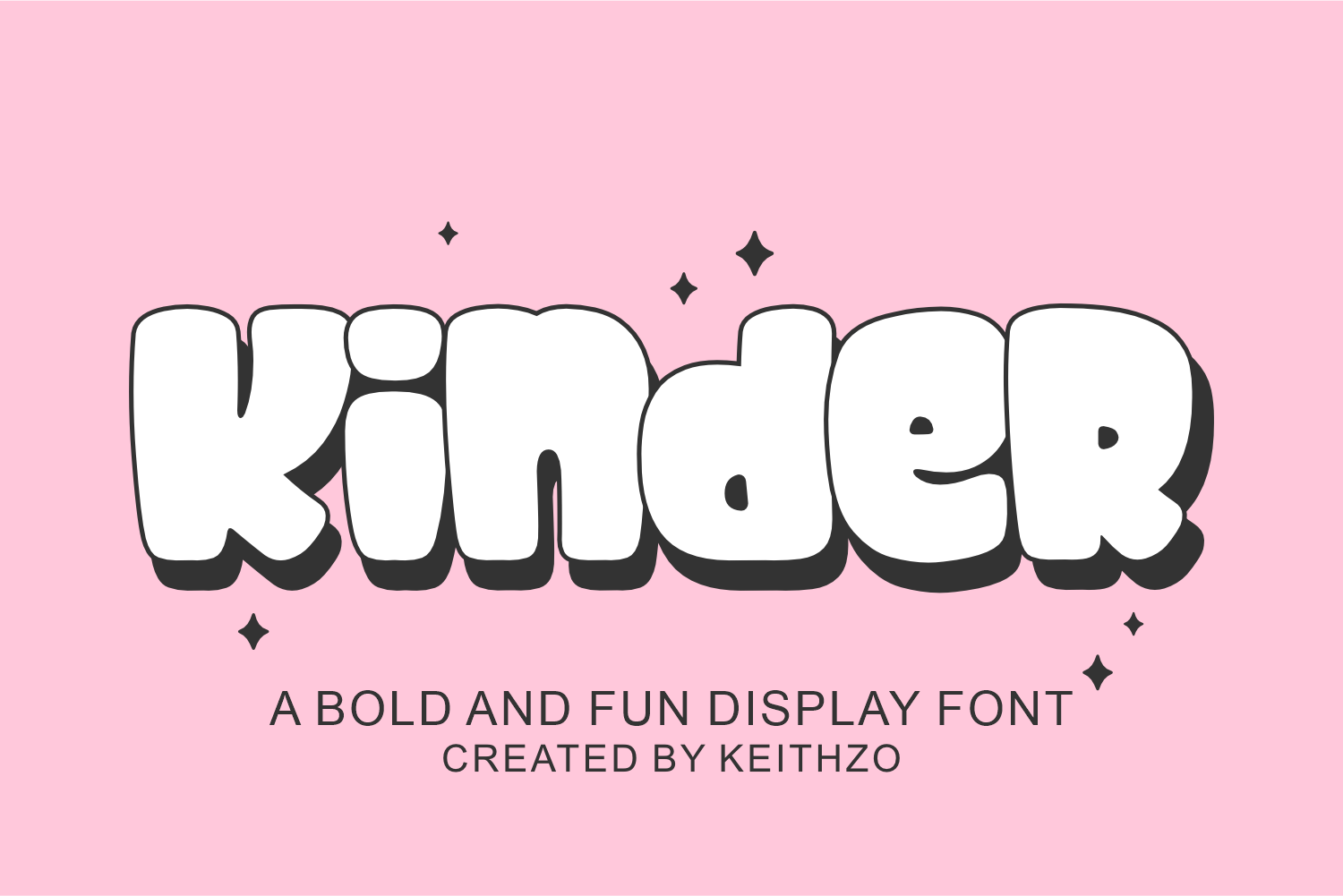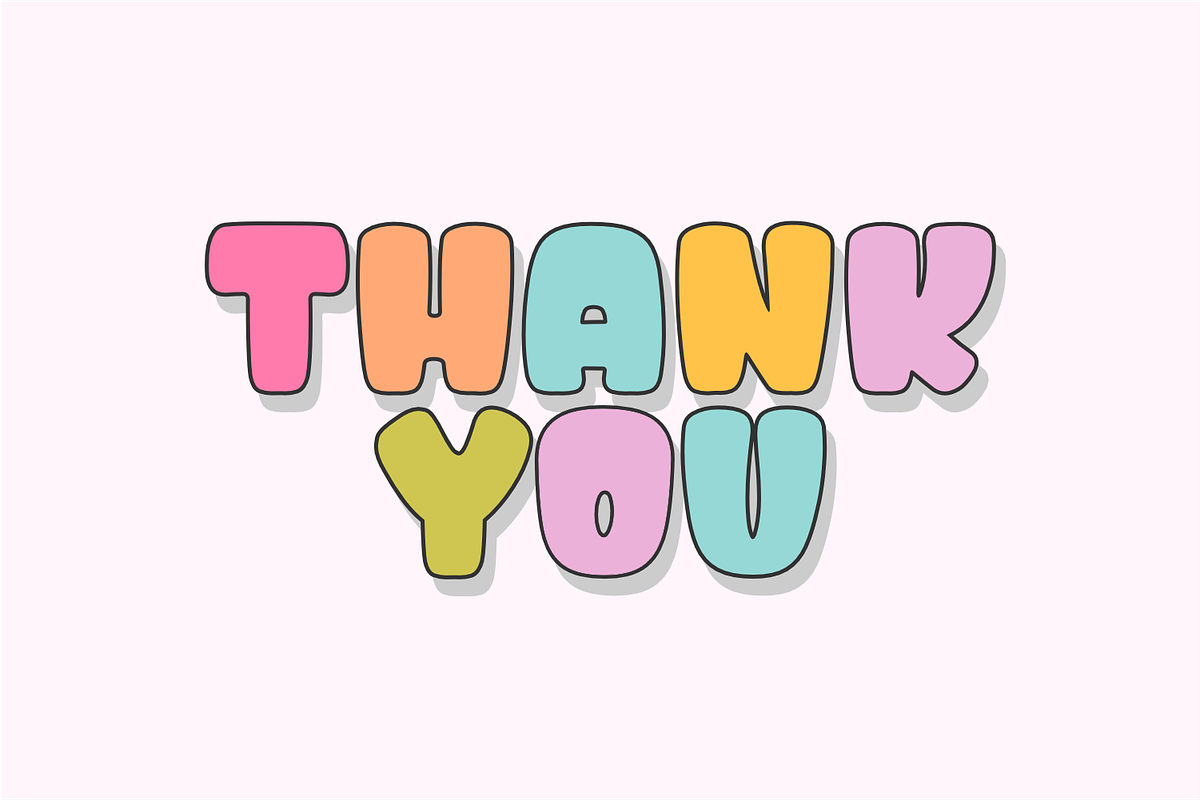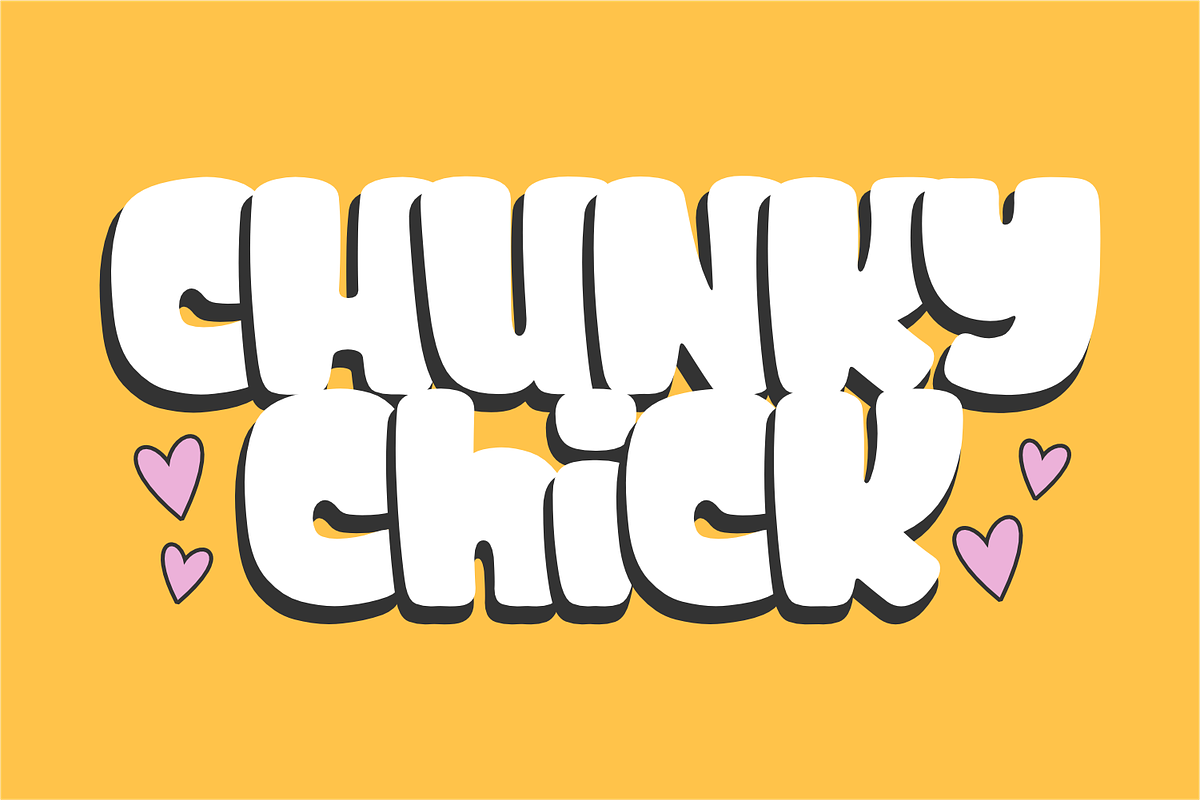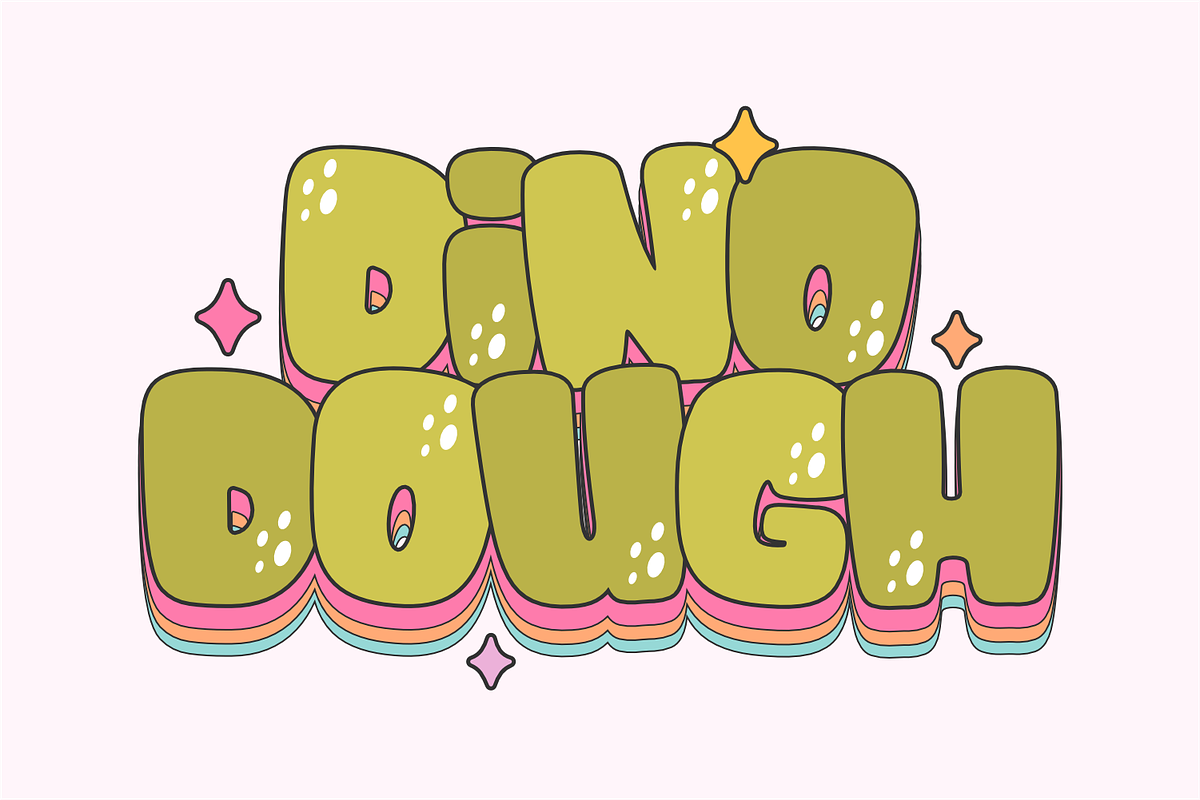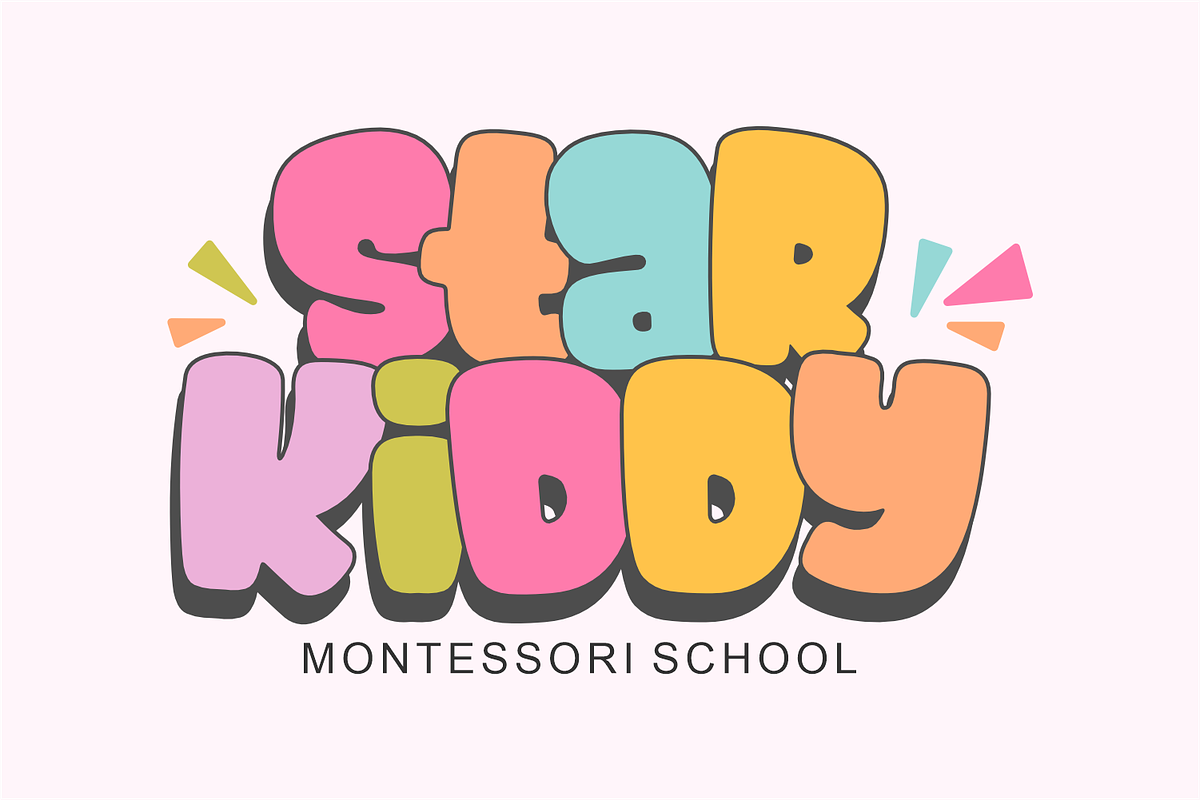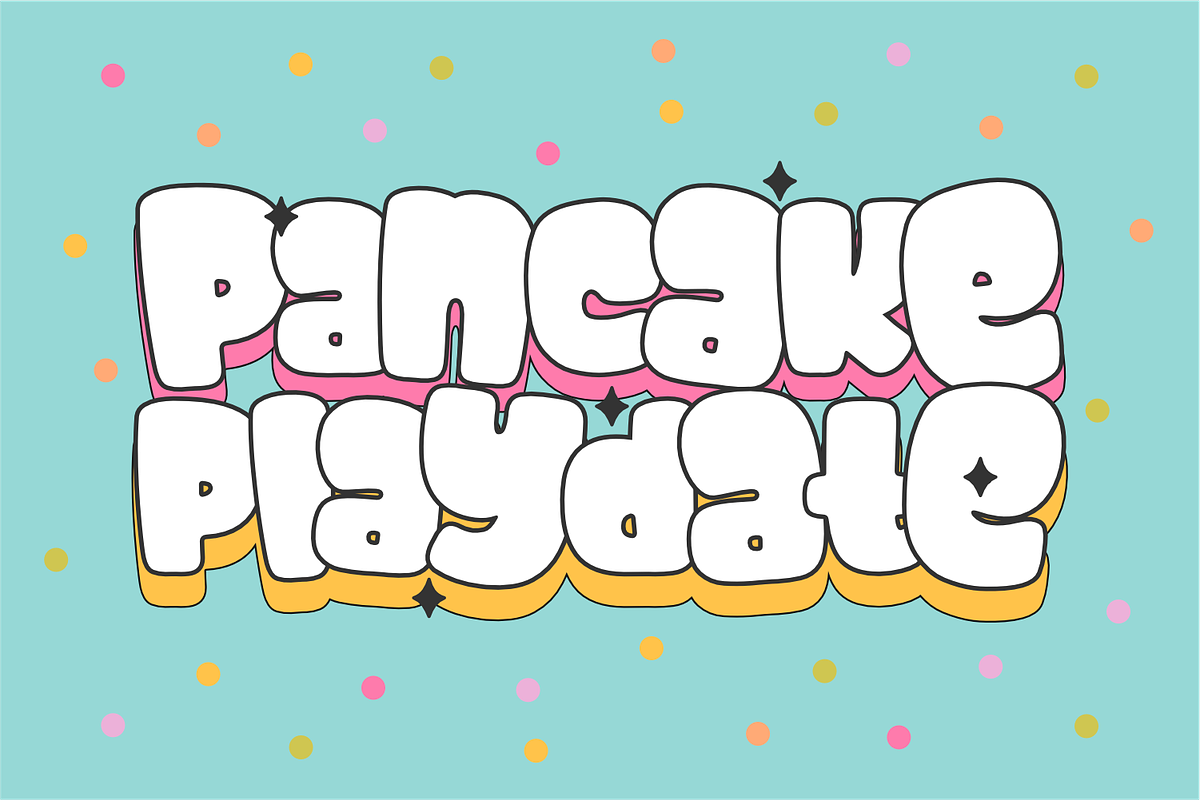
Kinder - Cute Display Font
Unleash a wave of charm and vitality with the Kinder Classroom font duo. Imbued with the enchanting essence of childhood, this playful pair is designed to sprinkle joy and imagination onto any canvas. Embodied in each character, you’ll find an irresistible blend of light-hearted wonder, ideal for designers, educators, and parents. The Kinder Classroom font duo isn’t just a font, it’s an invitation to inject a splash of jovial creativity in your every project. Discover how Kinder Classroom can bring your ideas to life with its irresistibly whimsical touch.